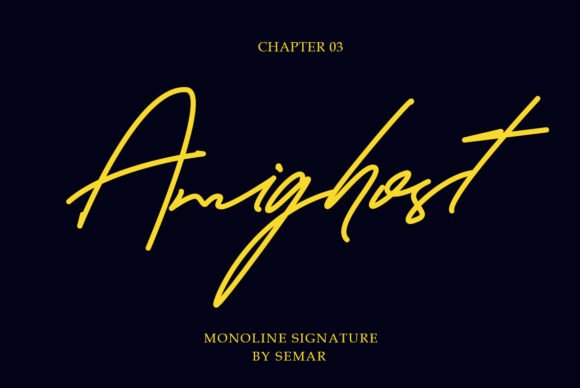
The Perfect Handwritten Touch: Discovering Amighost Font
There’s something magical about receiving a handwritten letter or a beautifully crafted wedding invitation. The personal touch, the love, and the effort that goes into creating such a piece of art is truly special. As designers, we’re always on the lookout for that perfect font that can evoke the same emotions and make our designs stand out.
Enter Amighost Font, an elegant handwritten font that adds a touch of nostalgia to any design. Whether it’s a wedding invitation, a thank you card, or a quote, Amighost Font is the perfect choice to give your design a handwritten feel. With its versatility and charm, it’s no wonder designers are falling in love with this font.
For designers, Amighost Font is a valuable addition to any font library. Its unique style and elegance make it perfect for logos, business cards, and any other design that requires a handwritten touch. So, if you’re looking to add a personal touch to your designs, look no further than Amighost Font.
Amighost Font Key Features
- Unique Characteristics: The Amighost font features a unique blend of modern and traditional elements, with intricate details and ornaments that set it apart from other fonts.
- Font Weight: The font is available in multiple weights, including Light, Regular, Bold, and Black, allowing designers to choose the perfect weight for their project.
Amighost Font Review
As a designer, I was excited to dive into the world of Amighost Font. Here’s my honest take on this font.
✨ One of the standout features of Amighost Font is its unique aesthetic. The blend of modern and vintage elements creates a captivating visual experience. It’s perfect for designers looking to add some personality to their projects.
✨ The font also boasts an impressive range of weights and styles, making it suitable for a wide variety of applications, from titles to body text.
⚠️ While Amighost Font is visually stunning, its legibility can be a concern at smaller font sizes. This may require some adjustments in the design to ensure the text remains readable.
⚠️ Additionally, the font’s compatibility with certain software and operating systems may be limited, which could cause issues in collaborative projects.
Amighost Font is a great choice for designers who want to add some flair to their projects. Its unique style and versatility make it a valuable asset, but it’s essential to be aware of its limitations to ensure the best results.
In conclusion, I’d recommend Amighost Font to designers who value creativity and are willing to work within its limitations.
- Unique blend of modern and vintage elements
- Impressive range of weights and styles
- Suitable for titles, body text, and various design applications
Amighost Font is ideal for:
- Creating elegant and sophisticated designs.
- Adding a touch of luxury to your branding.
- Designing invitations, menus, and other printed materials.
Alternatives to Amighost Font for Designers
Montserrat is a sans-serif font designed specifically for digital use. It’s ideal for headings and titles, especially when you need a clean and modern look. Montserrat is more geometric and sleek compared to Amighost Font, which has a more rounded and elegant feel. Use Montserrat for logos, headings, and titles where you want to convey a sense of sophistication and modernity.
Lato is a sans-serif font that’s highly versatile and suitable for body text as well as headings. It’s more rounded and friendly compared to Montserrat, making it ideal for designs that need a human touch. Lato is a great alternative to Amighost Font when you want a font that’s approachable and easy to read. Use Lato for body text, headings, and titles where you want to create a sense of warmth and approachability.
What font styles are available in the Amighost Font family?
The Amighost Font family includes regular, italic, bold, and bold italic styles, providing a comprehensive range of font options for various design applications.